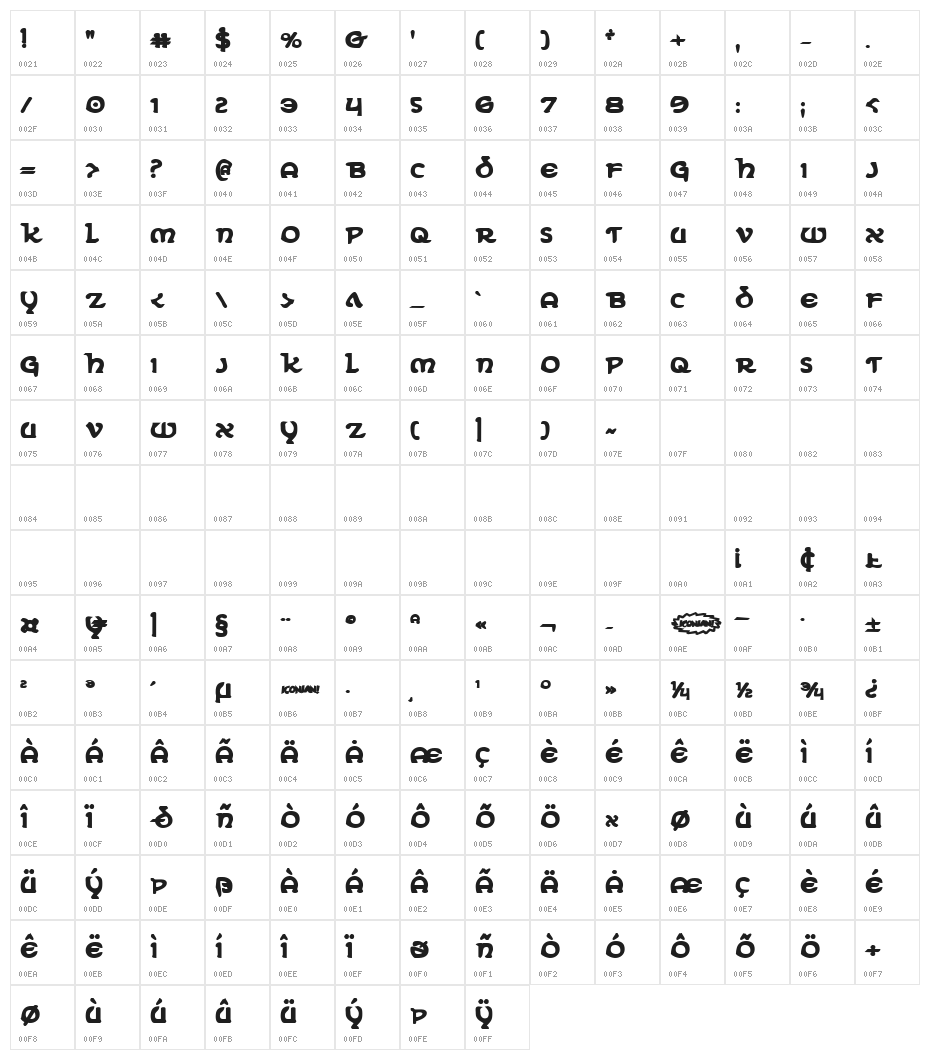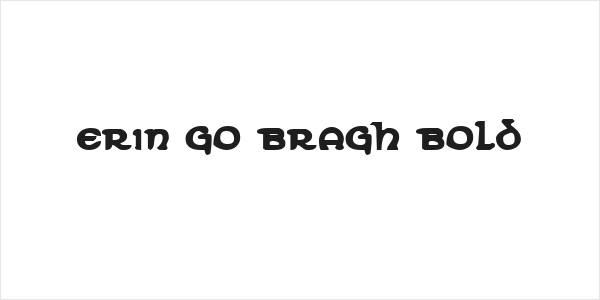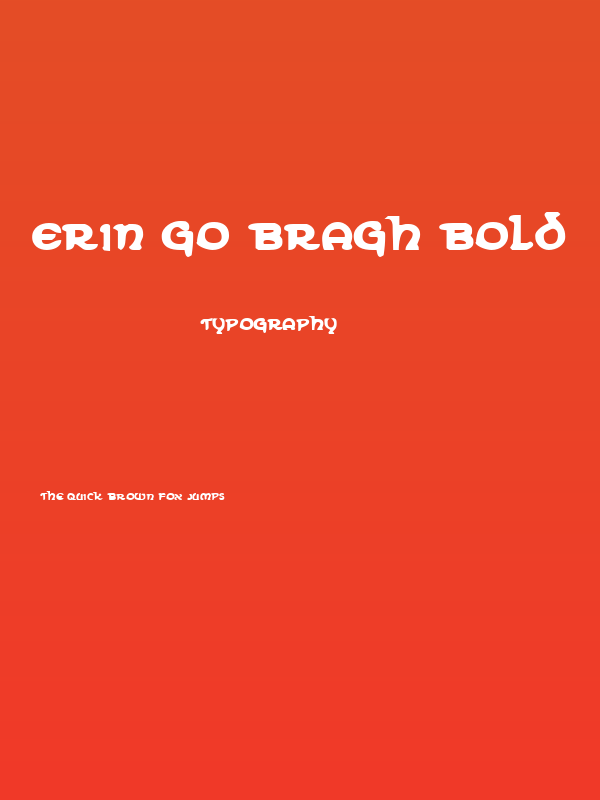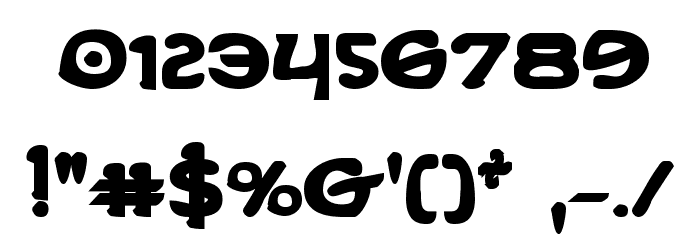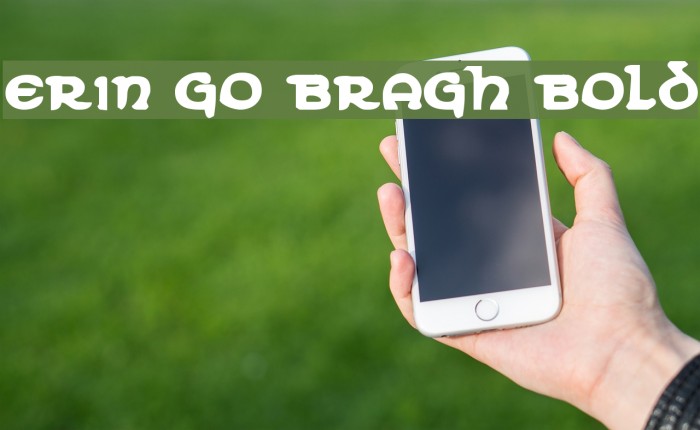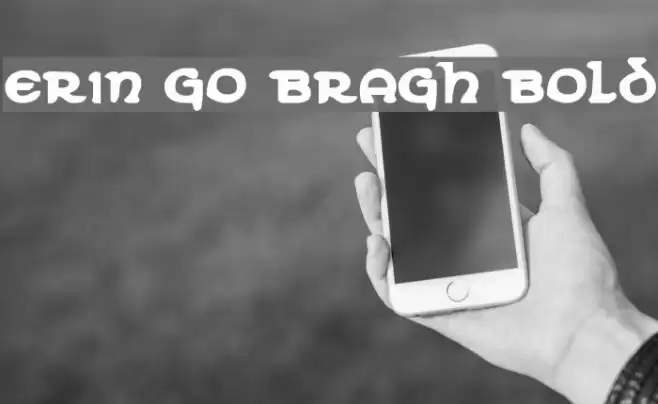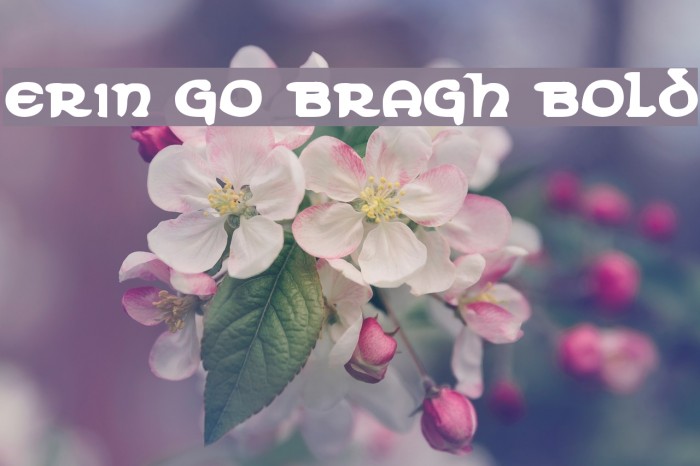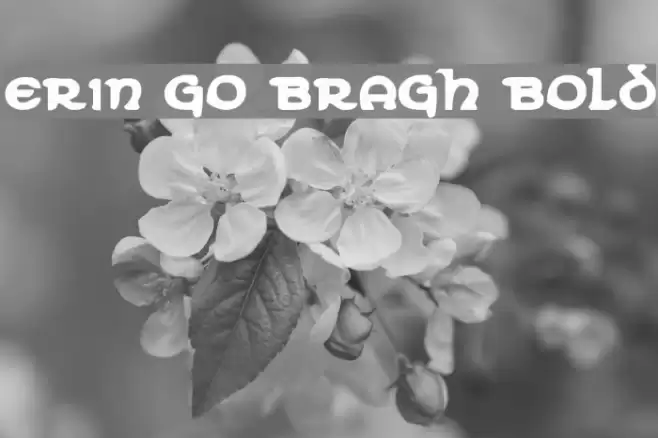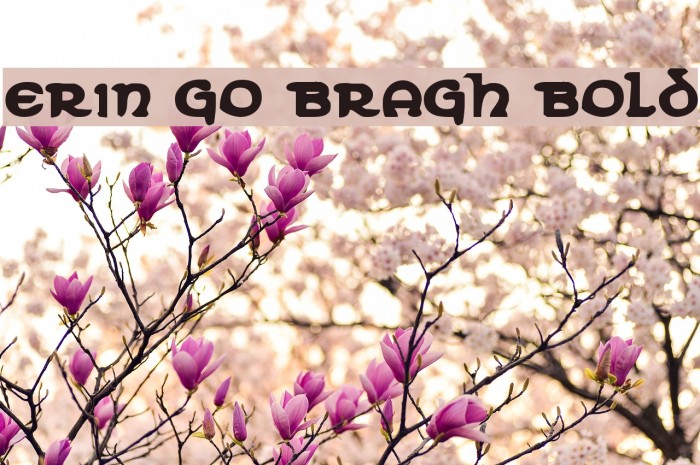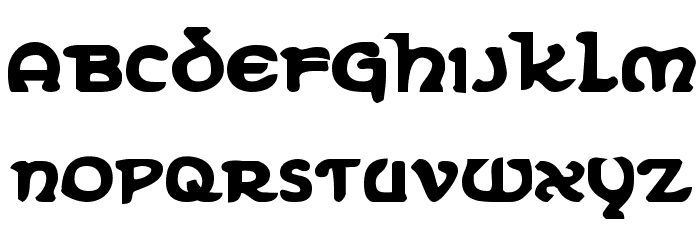
Erin Go Bragh Bold Font
Erin Go Bragh Bold Description
This font exhibits a bold and decorative style with a unique flair, characterized by its thick strokes and playful curves. The uppercase and lowercase letters maintain a consistent weight, giving the font a robust appearance. The characters are slightly condensed, enhancing the compactness of the text. The numbers and special characters follow the same bold and decorative theme, making them stand out distinctly. The font's overall style is reminiscent of traditional Celtic or Gaelic influences, which adds a cultural and historical touch to its design.
| Proposed Projects | Ideal for projects that require a cultural or historical touch, such as event posters, themed invitations, or branding for Irish pubs and cultural festivals. |